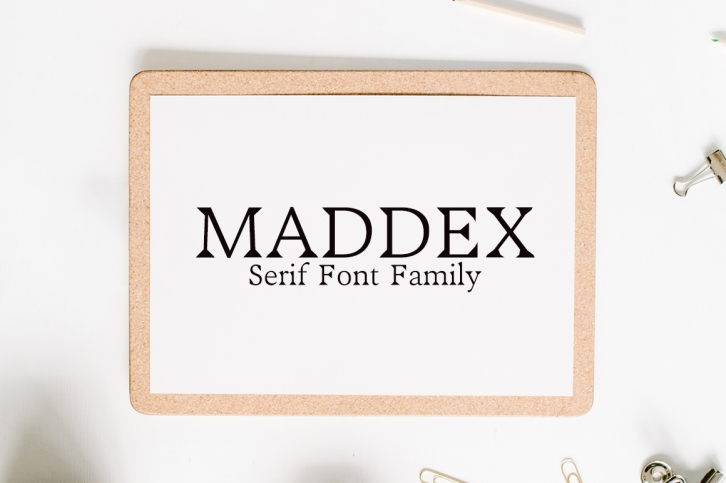
Maddex Serif Premium Font Family is a decorative serif font family, containing 3 different weights to give you variability and a modern feeling in your designs.